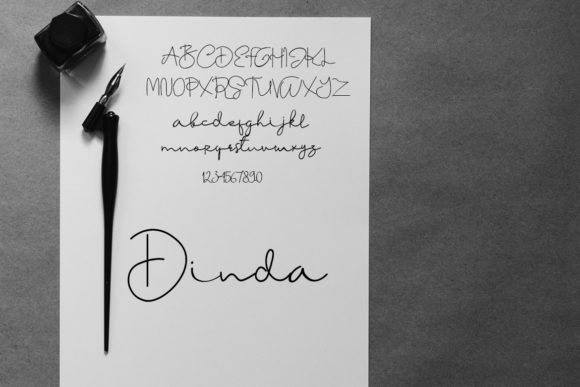
Introduction to Dinda Font
As a designer, you’ve probably found yourself staring at a blank page, waiting for that spark of creativity to strike. For me, it was a late night, a cup of coffee, and a blank canvas that led me to the discovery of the Dinda Font. Its elegant, handwritten script immediately caught my eye, and I knew I had to learn more about this beautiful design resource.
The Dinda Font is more than just a pretty face – it’s a high-quality, versatile font that’s perfect for any creative project. With its transparent background and sophisticated style, it’s a game-changer for designers looking to add a touch of class to their work. Whether you’re working on a branding project or a digital design, the Dinda Font is an invaluable resource that’s sure to elevate your work.
Key Features of Dinda Font
- High-quality, unique design ideal for creative projects requiring a distinctive touch.
- Transparent background, allowing for effortless layering and customization in your design projects.
- Resolution-independent design, ensuring crisp and clear text rendering regardless of screen resolution or print output.
Honest Review: Dinda Font
As a designer, I’m always on the lookout for high-quality fonts that can elevate my creative projects. The Dinda Font has caught my attention, and I’m excited to share my honest review.
- ✨ Unique and creative design: The Dinda Font offers a fresh and modern look that can add a touch of elegance to any design project.
- ✨ High-quality typography: The font is well-designed and easy to read, making it perfect for a wide range of applications.
- ⚠️ Limited customization options: While the Dinda Font is a great addition to any design project, it may not offer the level of customization that some designers require.
- ⚠️ Not suitable for all backgrounds: The font may not be the best choice for designs with a transparent background, as the text may not stand out as well.
Overall, I’m impressed with the Dinda Font, and I would recommend it to designers looking for a high-quality, free font for their creative projects. While it may have some limitations, it’s a great addition to any design resource library.
How to Use Dinda Font
Tips for Getting the Most Out of Dinda Font
Experiment with different font sizes, styles, and colors to achieve the desired effect. Use the Dinda Font in combination with other design elements to create a unique and eye-catching design.
The Dinda Font is ideal for use in creative projects such as brochures, flyers, posters, and social media graphics. It’s also great for use in presentations, reports, and other business documents.